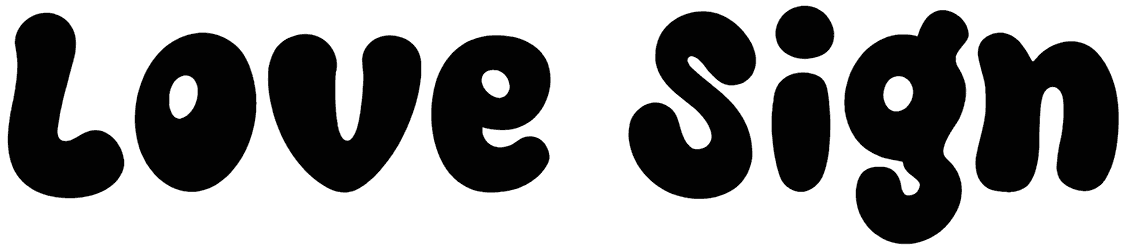
Love Sign Font
Create an adorable and cheerful design and impress your viewers with your unique taste. This love font, named Love Sign, possesses a fluffy and playful letter face and reflects an appealing vibe. This fancy pickup is a suitable choice for various creative projects, namely flyers, greeting cards, baby shower invitations, or the like, and can make them a memorable experience.